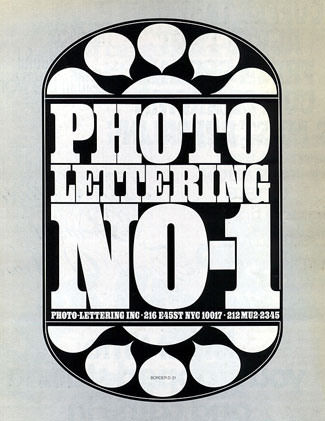
dot-font: Out of the Past, and Over the Top
An early-'70s booklet of headline settings from Photo-Lettering gives us both warning and inspiration today.
Thirty-odd years ago, at the beginning off the 1970s, phototypesetting was at the top of its game. The flexibility, creativeness, and pure excess that sprang from the conjunction of new technology and freeform Zeitgeist created a world of graphic design that was flamboyant and unrestrained. The "big idea" approach to advertising, which had been popularized a decade earlier in a dramatic but severe visual style, was now decked out in bellbottoms and paisley and a cornucopia of revivals and references to older styles and fashions.
Photo-Lettering, the New York typesetting house that supplied headlines to much of the advertising and graphic-design business, both fed the appetite for new, ever-more-striking display typefaces and strove to keep ahead of the curve by stimulating the demand. Its library of typeface designs was huge, and growing daily. And, of course, one of the ways the company advertised its own business was through brochures, catalogs, and other publications that showed off their typefaces in action. One of these, a 24-page booklet called "Photo-Lettering No. 1" (also called, on the back, "Alphabet Directions Number Twenty"), came into my possession recently, and its pages are a reminder of what type could look like in those days.
Excessive Style, Careful Execution
Some of the typefaces used in the sample headlines shown in this booklet are so much of their time that it's hard to imagine their ever being used again, except perhaps in a direct allusion to this cultural period.
This is a typeface that could only have come out of the late 1960s.
But many of the settings demonstrate a very careful arrangement of the letters and the words, taking into account not only their meaning but the particularities of their shapes as well. Even when the style of the typeface looks dated, these headlines are carefully composed and work on both verbal and visual levels -- the essence of display typography.
The most effective way to arrange the words is not always the obvious one.
Simply interlocking the small details of the letters and avoiding mechanically centered or aligned arrangements can give a title force.
Playing with symmetry, and how the letter shapes fit together.
Tight But Not...Oh, Never Mind
This was the era of tightly spaced type, smashed together and sometimes overlapping for effect (see my earlier column "Type That's Tight but Not Touching" for more). There are plenty of bad examples of this style, but this Photo-Lettering booklet shows quite a few examples of doing it right. For instance, this title setting for "The Story of Roy Bean," with extremely heavy letters running into each other, works because of the very small size of the counters inside the letters (which mean that the space within the letters doesn't look out of proportion to the lack of space between them) and because the bits that overlap are invariably the most exaggerated parts of the letterforms (so they don't obscure the actual letterforms very much).
Tight space between letters, or even no space, sometimes works, when the letters are fat enough and the essential structure isn't obscured.
Sometimes there's a typeface that seems to have one and only one proper use. Could anyone find another use for the face shown in this headline (identified here as "8850n")? In what other context could those flailing swashes be appropriate, except a headline about an octopus? (Well, perhaps one about earthworms.)
There's a reason this typeface is known as "Octopus." This may be its perfect use.
One of the typefaces that was popular at the time was Americana, a face that's notoriously hard to space comfortably. The samples shown here use that face's big, wide letterforms effectively, but they still suffer from the huge counters and the high contrast, which make any headline look like a jumble of curved sticks with odd holes in the middle of words.
Americana has striking letterforms but is very hard to space successfully, even in just a few words.
I certainly don't recommend going and seeking out excessively dated display typefaces. Nor am I a fan of the 1970s "tight-but-not-touching" style of typesetting. But it's instructive to look at examples from various eras and see what was in the eye and mind of the typographer. And it's always useful to study examples of careful work, no matter what the style.
If I see a rash of faux-'70s headlines in the next few months, I'll regret having written this column. But if I see a new attention to shape and the arrangement of type on the page, then this backward glance at a bygone era will have been worth the risk.
Stirred a memory...
John's mention of Octopus, where he asked rhetorically...
Could anyone find another use for the face shown in this headline (identified here as "8850n")? In what other context could those flailing swashes be appropriate, except a headline about an octopus?
...stirred an old memory. Back in the early 70s (when else?) I used Octopus for the company name on my first business card - for a business called Bowser Toys. It worked fine, giving just the whimsy needed.
Times have changed, for sure, but I do hope we see a revival of the best examples of this era. When I need inspiration, I still go through my much-yellowed copies of U&lc for examples of this sort. And since usually the type direction in those issues came from the type designer, I always felt certain faces (like Benguait) were designed to be set very tightly!